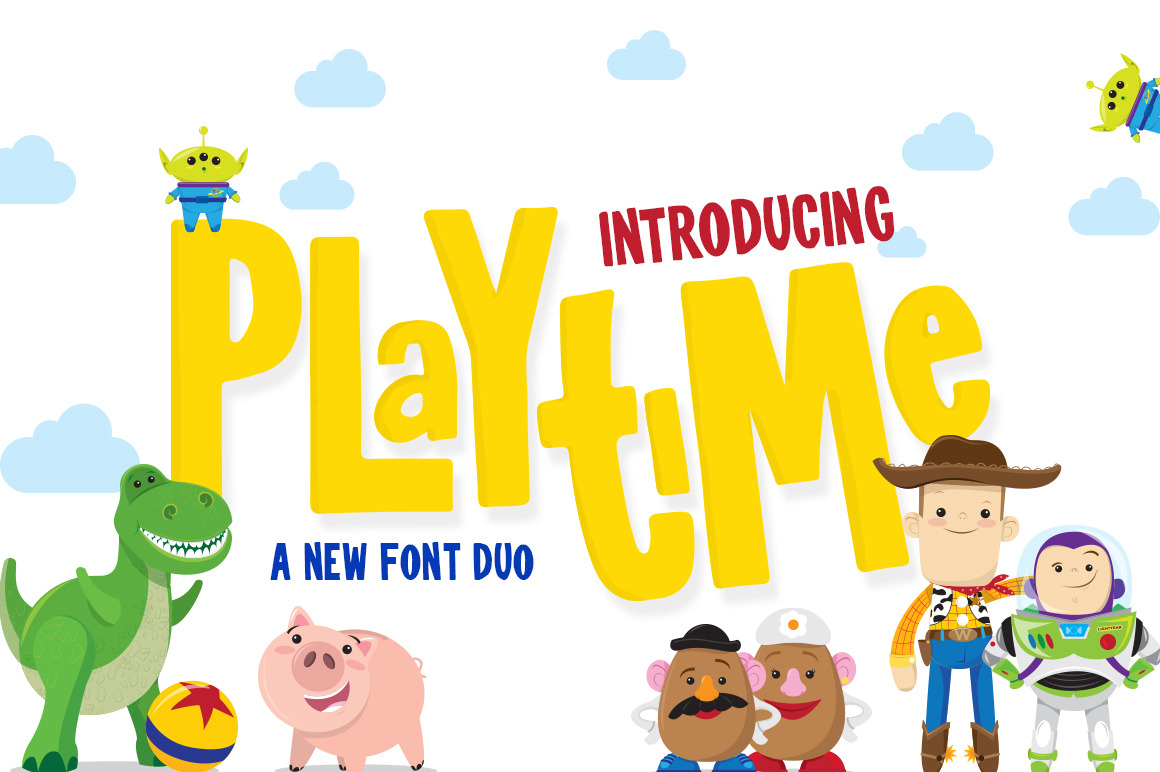
Playtime Font
Playtime is a fun and creative new font that is adorably cute yet bold enough for all font occasions! We love it’s quirky characters and you can combine them to create unique looks! Have fun playing!